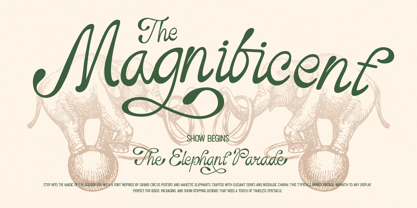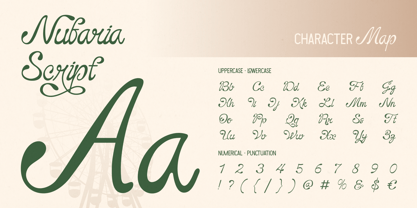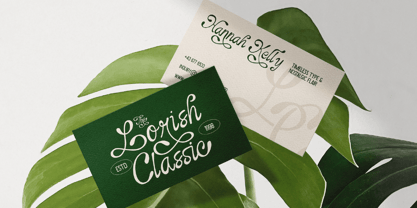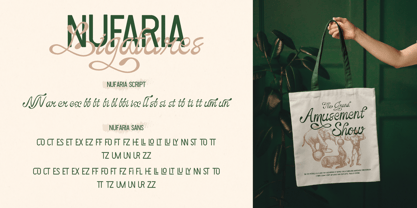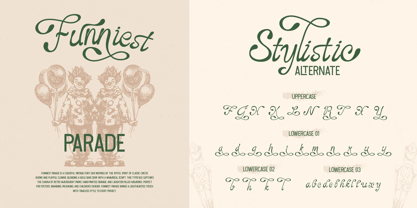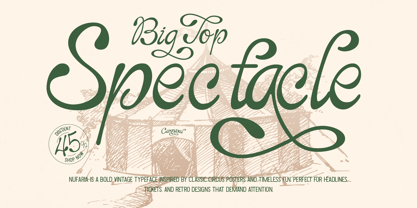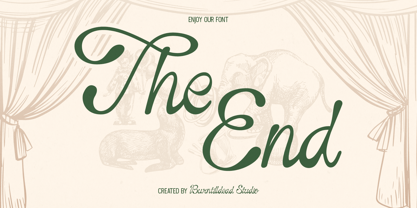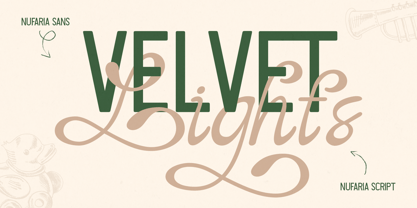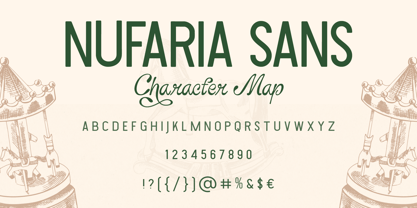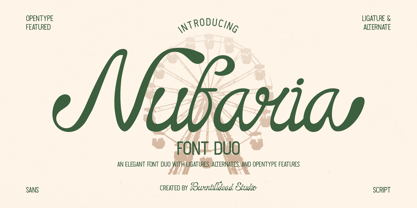
Nufaria
von Burntilldead
Die Schriftfamilie Nufaria wurde von Eric Kurniawan entworfen und von Burntilldead veröffentlicht. Nufaria enthält 2 Stile und Familienpaketoptionen. Mehr über diese Familie
Introducing Nufaria, a beautiful font duo that brings together the charm of a retro script with the clarity of a clean sans serif. Inspired by vintage Hawaiian posters and timeless summer vibes, Nufaria is here to brighten your designs with elegance and warmth.
Nufaria Script features smooth curves, graceful ligatures, and opentype alternates, perfect for projects that need a handwritten yet polished feel. Meanwhile, Nufaria Sans adds structure with its neat, all-caps letterforms, making this duo highly versatile for both headlines and body text.
From wedding invitations, branding logos, product packaging, to festival posters, greeting cards, social media posts, handcrafted label designs and vintage or tropical-inspired design. You know what this combinataion font also perfect for cafe branding, bakery or ice cream shop!
Features:
• Uppercase & Lowercase
• Number
• Punctuation
• Alternate
• Ligatures
• Multilingual
Designer: Eric Kurniawan
Foundry: Burntilldead